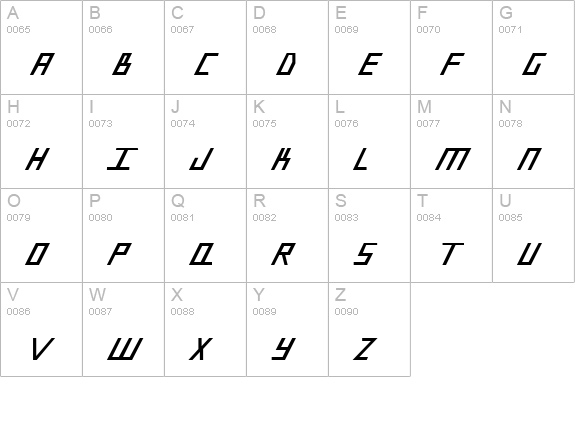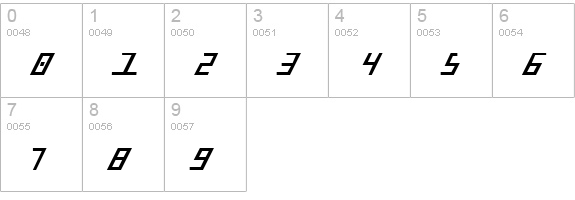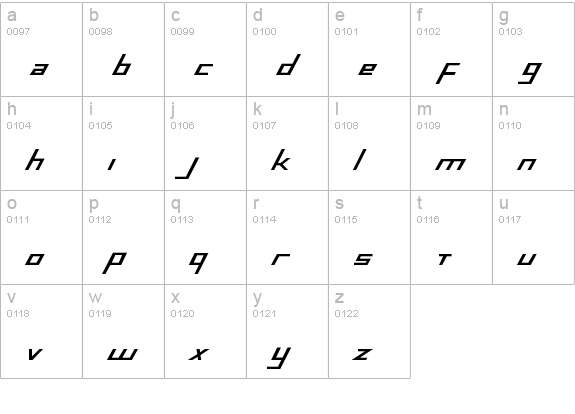
Blue July ExtraBold Font Details
Blue July ExtraBold is an extra-heavy, attention-grabbing variant in the Blue typeface family \xE2\x80\x94 well suited to high-impact headlines, posters, and bold branding.
Introducing Blue July ExtraBold font, a striking and modern typeface that demands attention with its bold and powerful presence. Designed with a touch of elegance and a sense of authority, this font is perfect for making a statement in headlines, posters, branding, and more. With its strong and eye-catching design, Blue July ExtraBold exudes confidence and sophistication, making it an ideal choice for projects that require a bold and impactful look. Whether you're designing a logo, creating a magazine layout, or crafting a promotional piece, this font will help you stand out from the crowd. And the best part? Blue July ExtraBold is available for free download at FontsMarket.com. So go ahead and add this versatile and striking font to your design arsenal today. Let Blue July ExtraBold elevate your projects to new heights with its bold and captivating style.